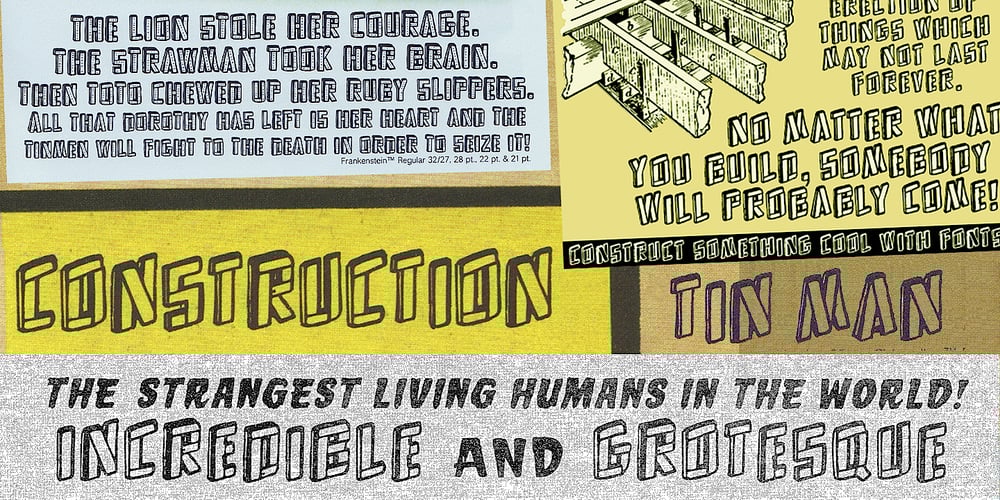
Sidewalker
Sidewalker font
Sidewalker Font Family was designed by Lloyd Springer and published by TypeArt Foundry. Sidewalker contains 2 styles and family package options. Sidewalker is a uniquely angled version of one of our Frankenstein fonts.. In the PC version of this font family the style names are slightly different from those used in the Mac versions. But the fonts are otherwise identical.